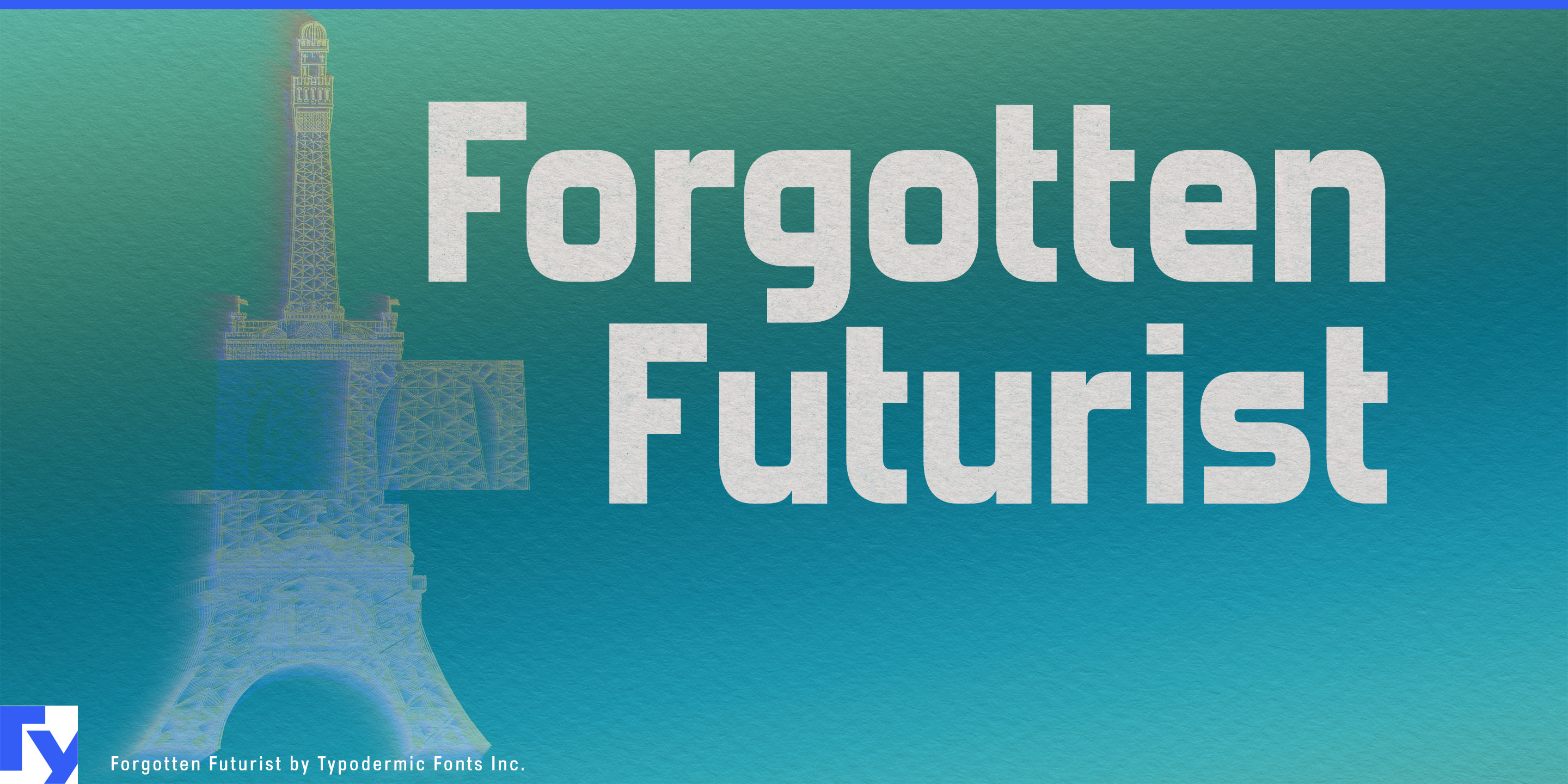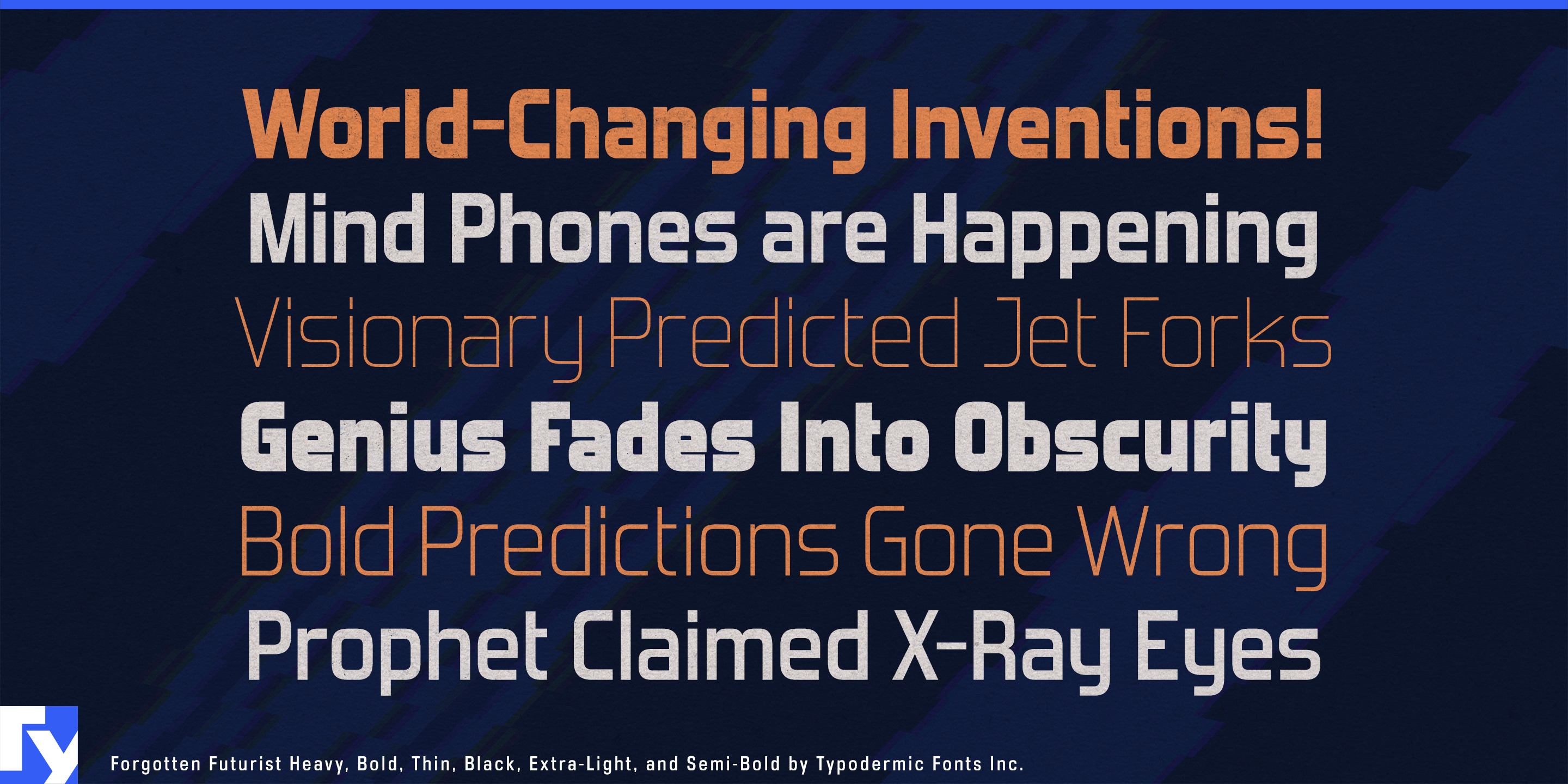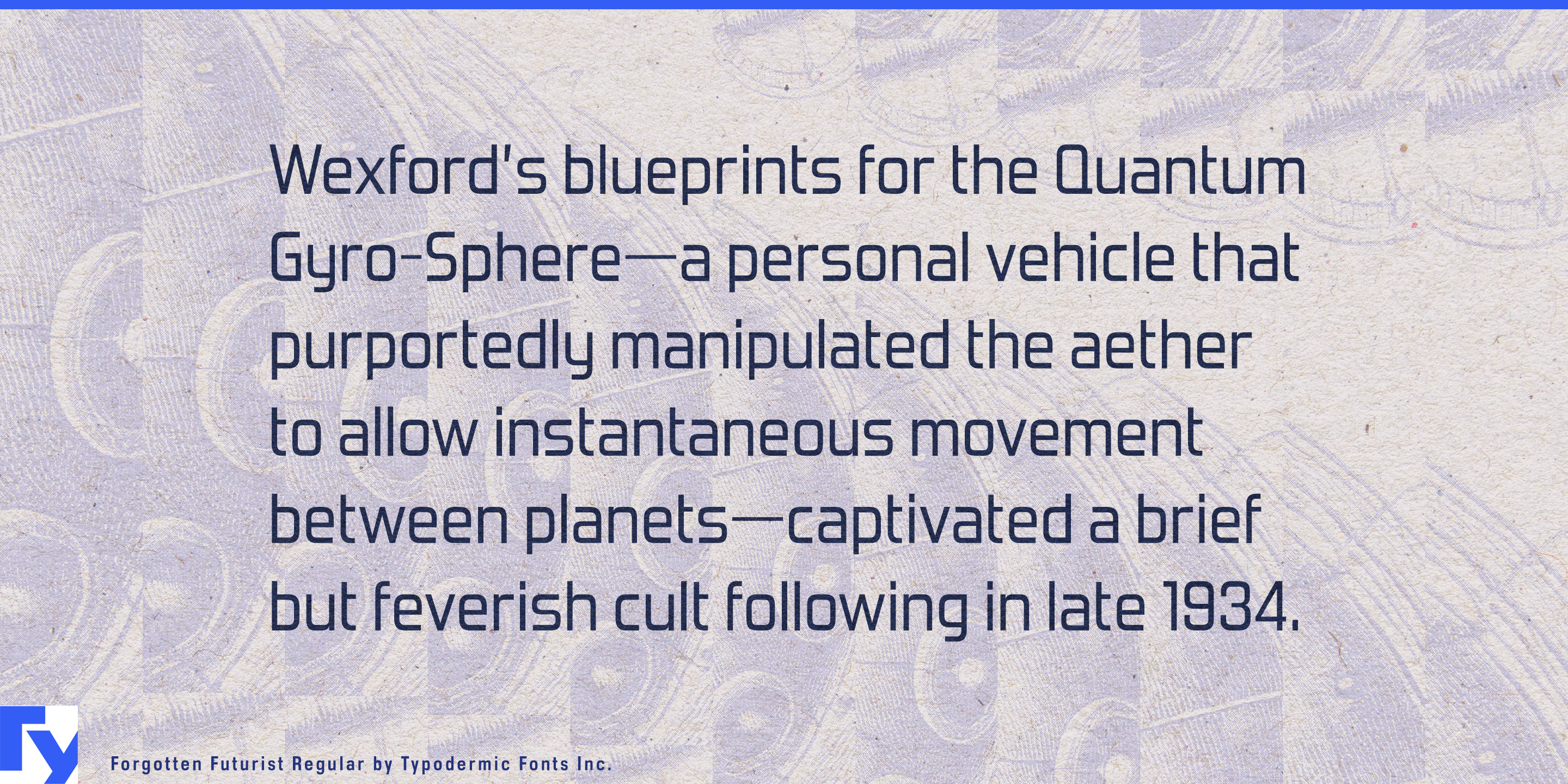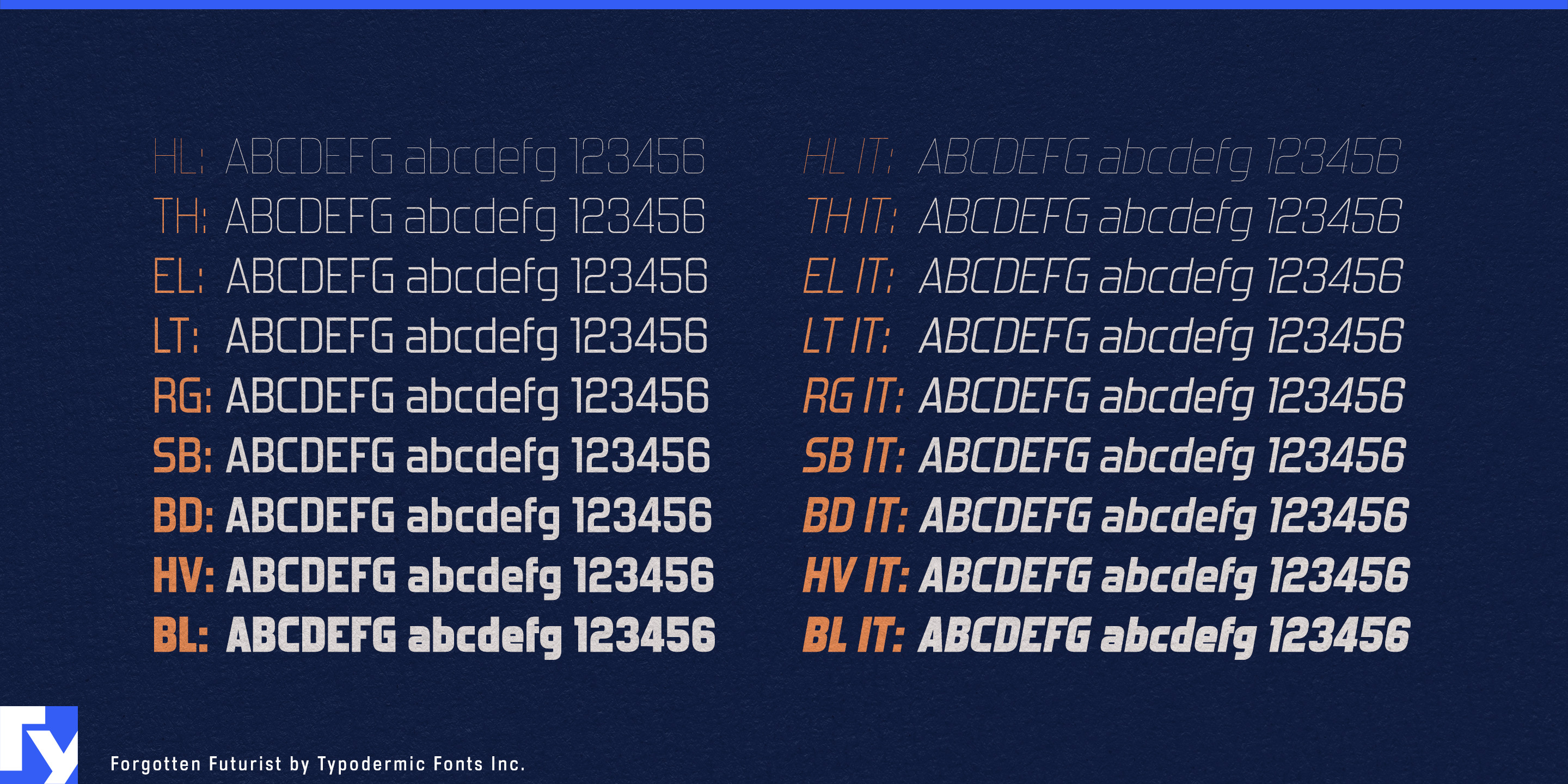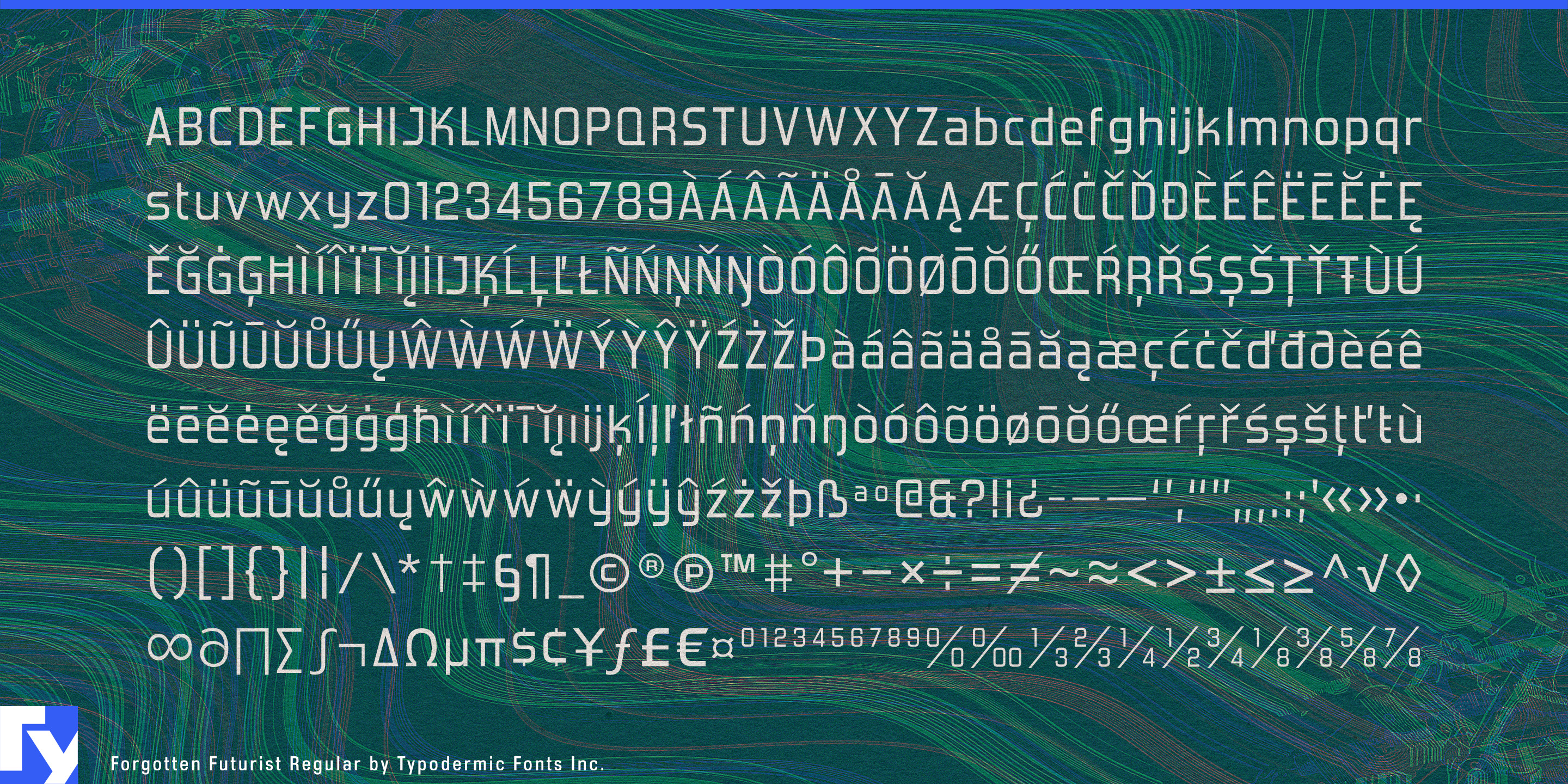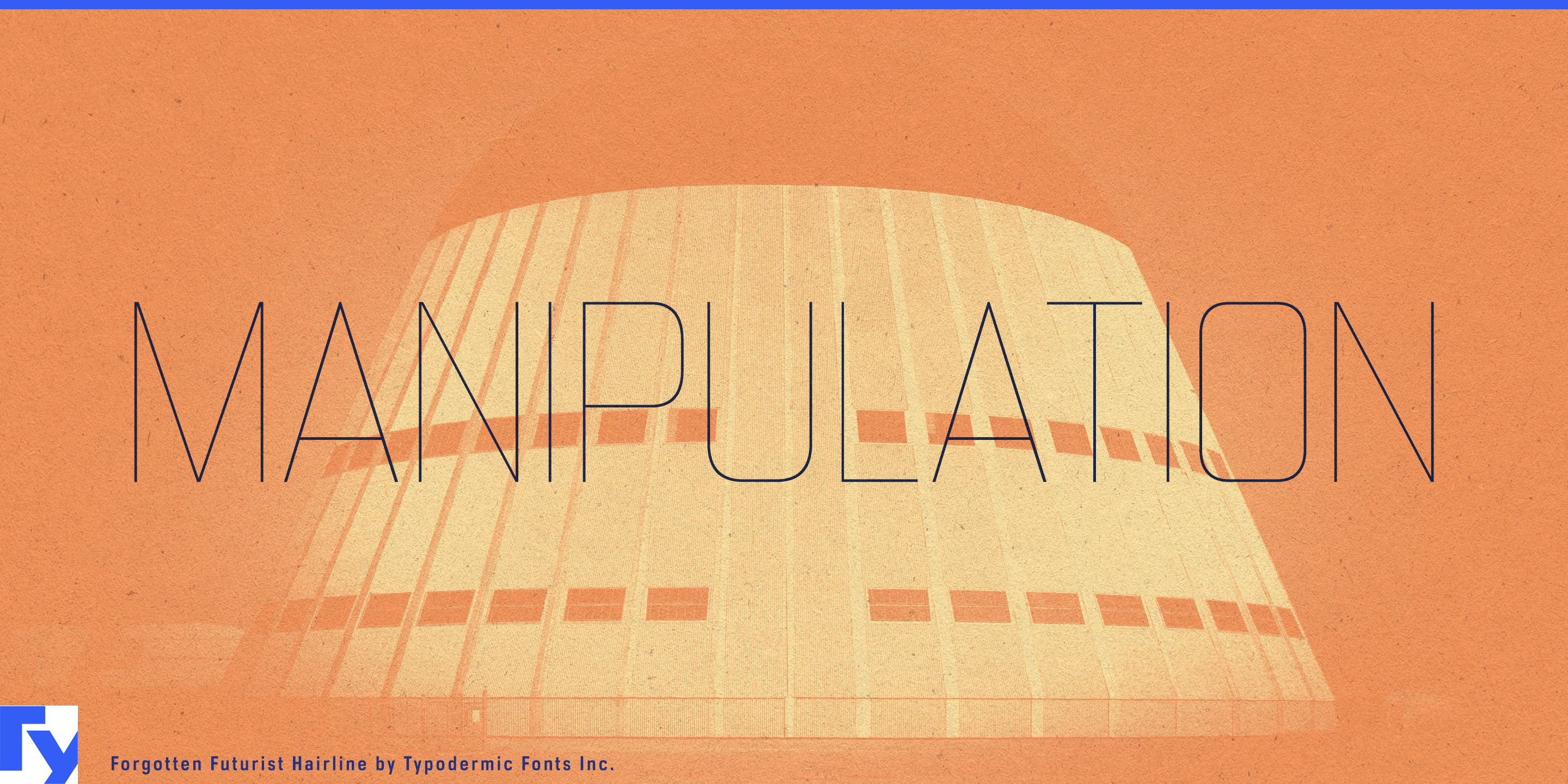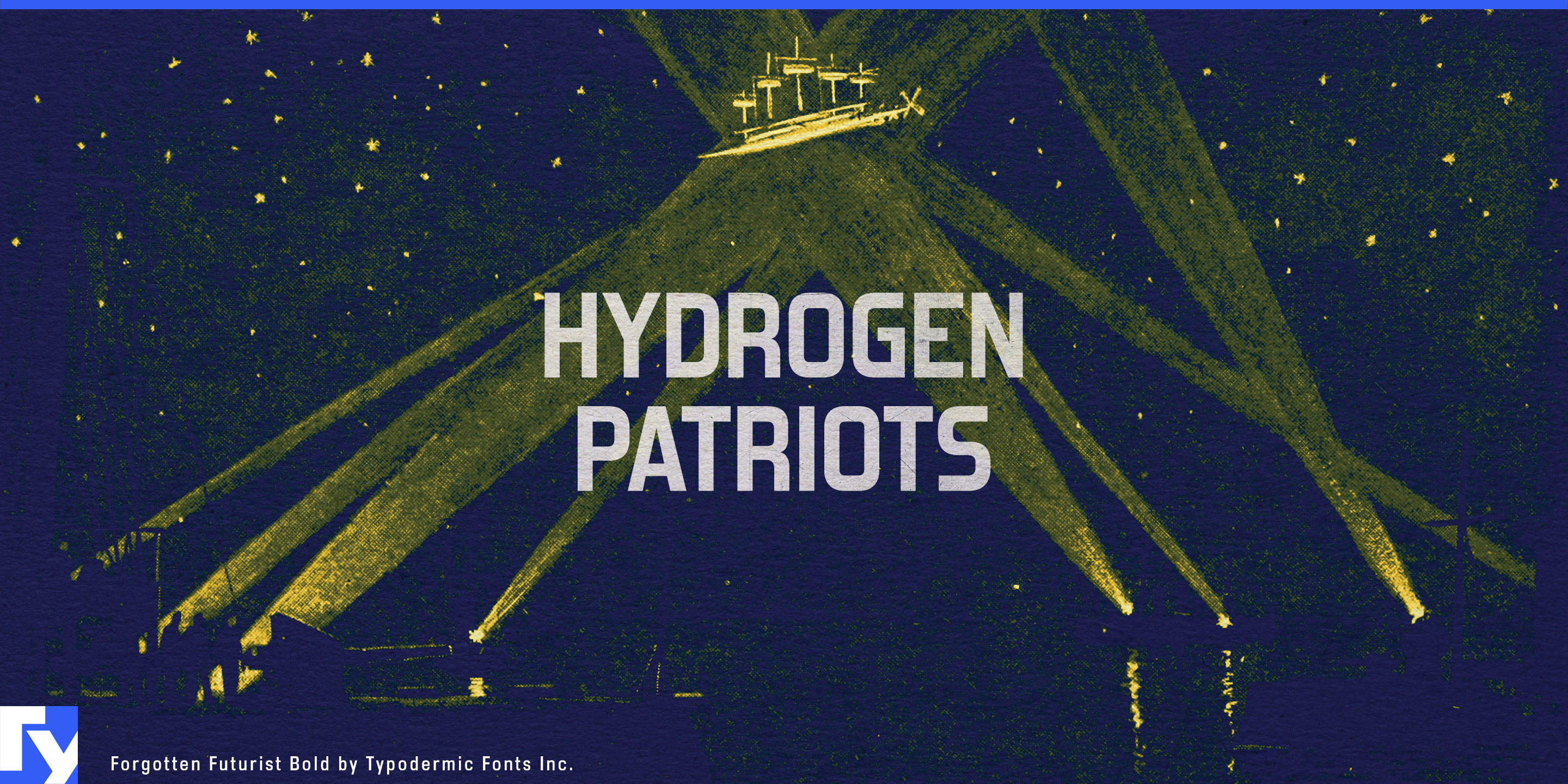
Forgotten Futurist
Modern life depends on machinery most people never see: pumps beneath streets, switchgear behind locked doors, cooling systems above ceilings, and backup power inside data centers. The organizations that build and maintain these systems need typography that feels technical, dependable, and workmanlike without disappearing into an anonymous corporate sans. Forgotten Futurist fills that need.
Its squared curves, blunt joins, and narrow proportions suggest engineered construction; an uneven rhythm keeps the result from becoming sleek or precious. The letters feel assembled from practical components rather than shaped for aerodynamic beauty. Forgotten Futurist belongs to the part of the future behind the access panel.
That makes it a natural fit for water authorities, electrical utilities, district-energy projects, battery-storage facilities, hydrogen infrastructure, and offshore-wind contractors. It can give infrastructure reports, asset maps, public consultation displays, training material, facility graphics, and contractor presentations a recognizable technical voice without suggesting military hardware or a polished software startup.
The same practical character suits industrial maintenance, HVAC and refrigeration networks, equipment rental, spare-parts suppliers, and field-service companies. Put it to work on fleet livery, service portals, parts catalogues, uniforms, certification programs, and trade-show displays. Data centers, cold-chain logistics, warehouse automation, telecommunications infrastructure, and civil-engineering projects offer further territory.
Lighter styles sit comfortably beside diagrams, maps, and schematic imagery. Heavier weights provide solid project titles and facility identifiers; the middle of the family can handle captions and short explanatory passages. Its distinctive cadence remains present throughout, keeping complex visual systems from becoming clinically polished.
Forgotten Futurist grew from the same early Typodermic experiments that produced Hemi Head, then evolved into a different kind of machine. Hemi Head belongs on the visible surface of the vehicle. Forgotten Futurist is more at home in the service bay, pumping station, distribution center, or control building where the real work takes place.